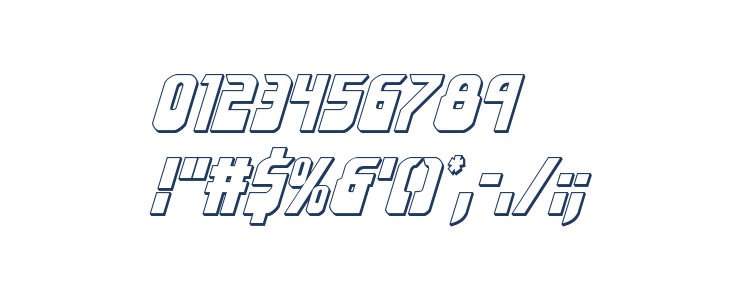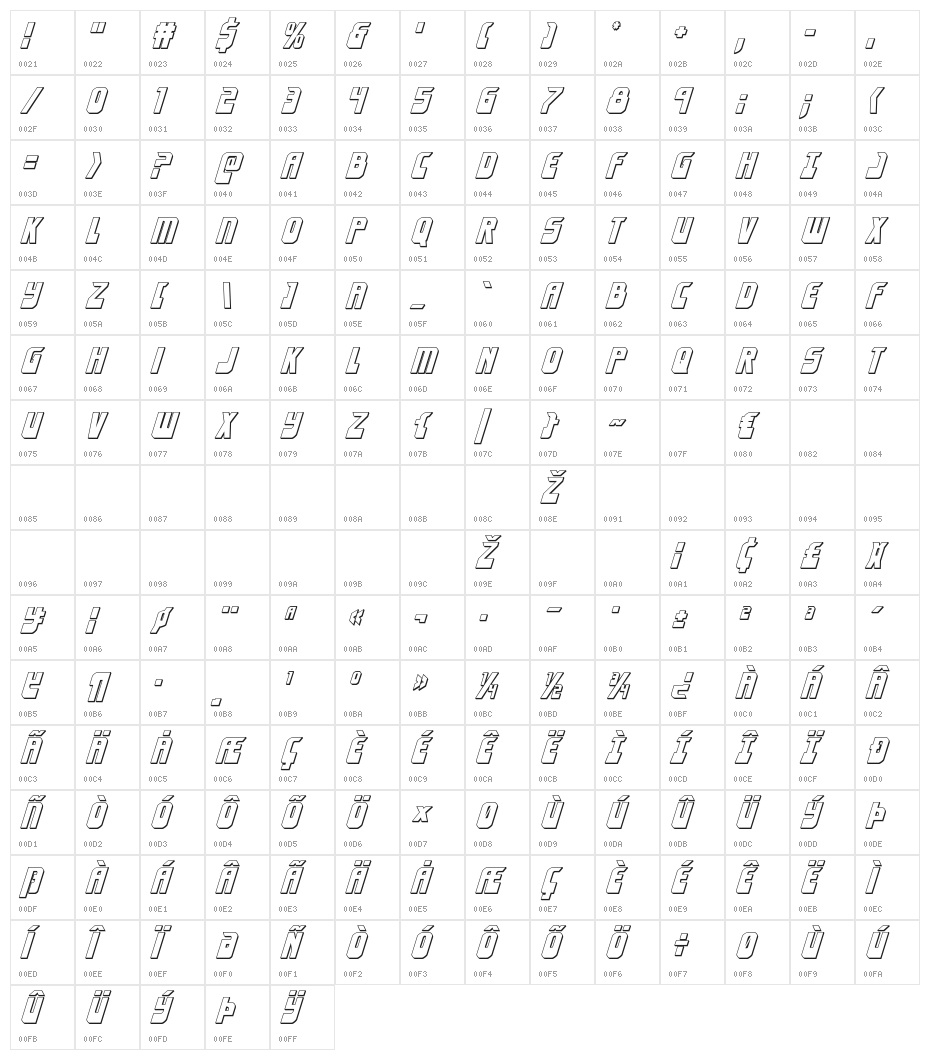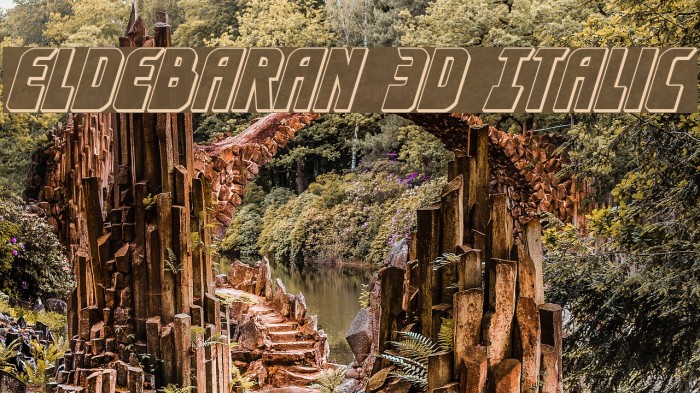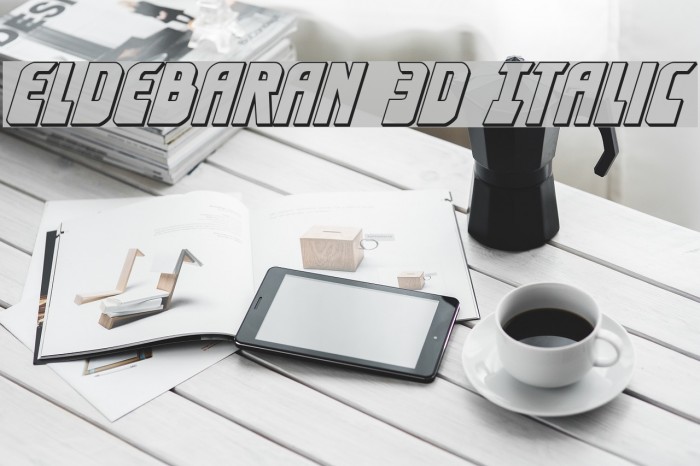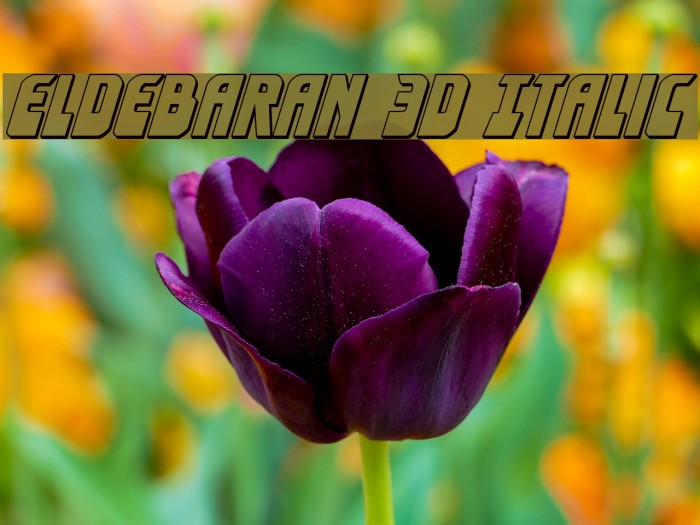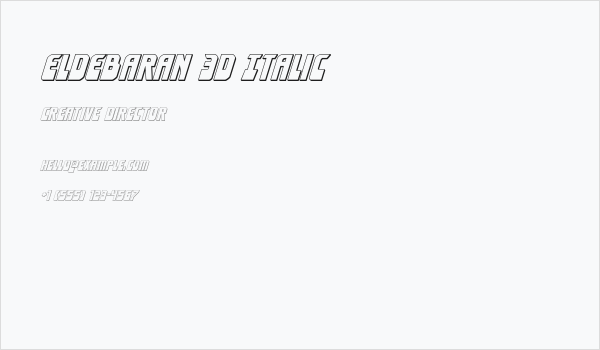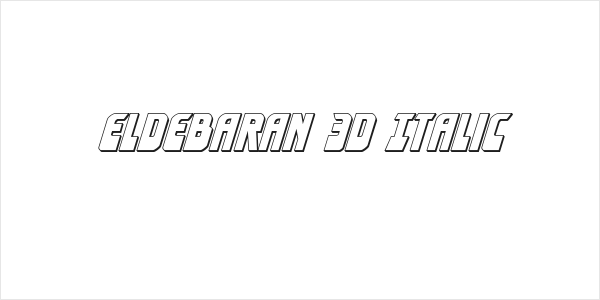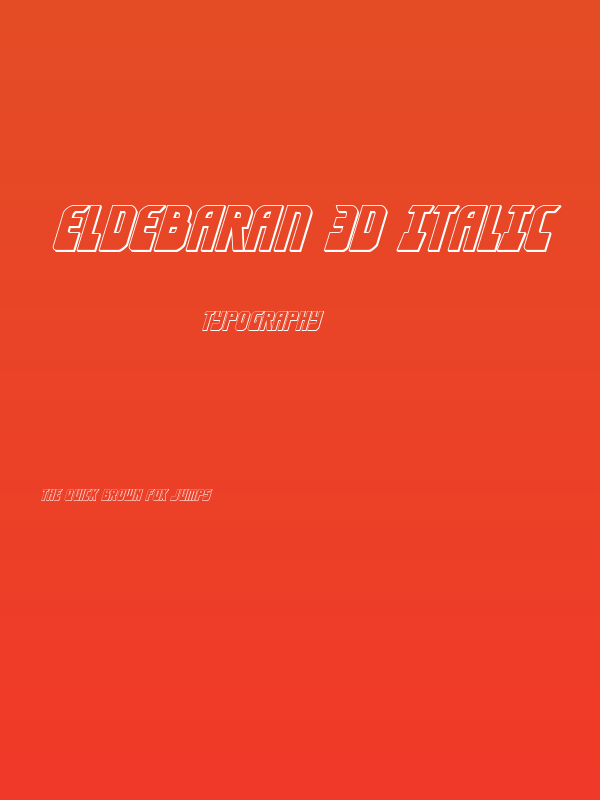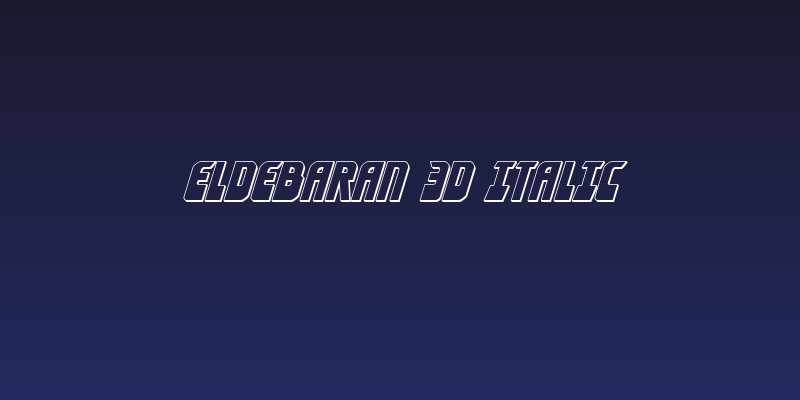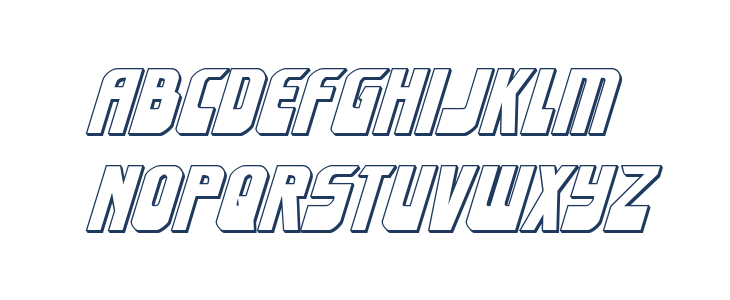
Eldebaran 3D Italic Font
Eldebaran 3D Italic Description
This font features a bold, three-dimensional design with an italic slant, creating a dynamic and futuristic appearance. The characters are outlined with a shadow effect that gives them depth and a sense of movement. The uppercase letters are uniform in height, while the numbers and special characters maintain the same stylistic approach, ensuring consistency across all glyphs. The font's geometric structure and clean lines make it suitable for modern and tech-oriented designs. Its unique style captures attention and adds a distinctive flair to any project.
| Proposed Projects | Ideal for tech branding, video game titles, futuristic posters, and digital media. |